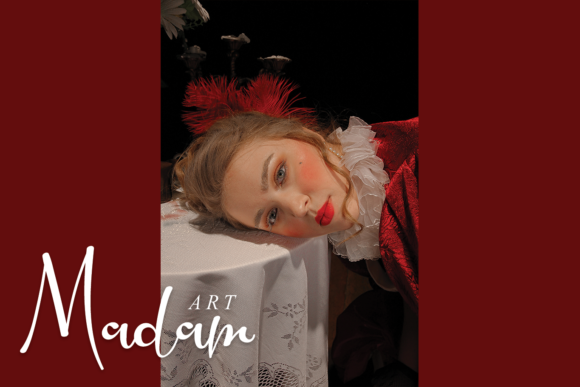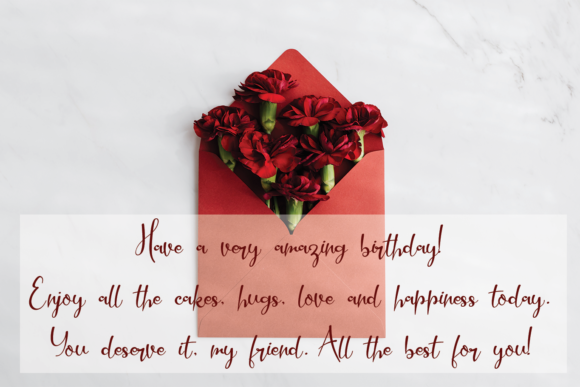
Introducing Happy Birthday Font: The Sweetest Script Font for Your Creative Projects
Are you looking for a font that can add a touch of joy and sweetness to your designs? Look no further than the Happy Birthday font! This beautiful script font is perfect for creating stunning wedding invitations, gorgeous stationery art, eye-catching social media posts, and much more. In this article, we’ll take a closer look at the Happy Birthday font and explore its features, uses, and benefits.
What is Happy Birthday Font?
Happy Birthday is a sweet and flowing script font that is sure to capture your heart with its cute and joyful style. Its elegant and cursive letters are designed to add a touch of sophistication and whimsy to any design project. Whether you’re a designer, crafter, or DIY enthusiast, this font is perfect for creating beautiful and eye-catching designs.
Features of Happy Birthday Font
The Happy Birthday font comes with a range of features that make it perfect for various design projects. Some of its key features include:
- Sweet and flowing script style: The Happy Birthday font features a beautiful script style that is perfect for creating elegant and sophisticated designs.
- Cute and joyful vibe: This font is designed to add a touch of joy and happiness to your designs, making it perfect for birthday cards, wedding invitations, and other celebratory designs.
- Elegant and cursive letters: The font features elegant and cursive letters that are sure to add a touch of sophistication to any design project.
- Multipurpose: The Happy Birthday font can be used for a wide range of design projects, including wedding invitations, stationery art, social media posts, and more.
Uses of Happy Birthday Font
The Happy Birthday font is a versatile font that can be used for various design projects. Here are some of the most popular uses of this font:
- Wedding Invitations: The Happy Birthday font is perfect for creating beautiful and elegant wedding invitations that will set the tone for your special day.
- Stationery Art: This font can be used to create gorgeous stationery art, including greeting cards, gift tags, and journal pages.
- Social Media Posts: The Happy Birthday font can be used to create eye-catching social media posts that will grab the attention of your followers.
- Crafting Projects: This font is perfect for crafters who want to add a personal touch to their DIY projects, such as scrapbooking, paper crafting, and more.
Benefits of Using Happy Birthday Font
There are many benefits to using the Happy Birthday font for your design projects. Here are some of the most significant advantages:
- Unique and Creative: The Happy Birthday font is a unique and creative font that will help your designs stand out from the crowd.
- Easy to Read: This font is easy to read and understand, making it perfect for designs that require a clear and concise message.
- Customizable: The Happy Birthday font can be customized to fit your design needs, including changing the color, size, and style.
- Time-Saving: Using a pre-designed font like Happy Birthday can save you time and effort, allowing you to focus on other aspects of your design project.
Tips for Using Happy Birthday Font
Here are some tips for using the Happy Birthday font effectively in your design projects:
- Pair with Other Fonts: The Happy Birthday font can be paired with other fonts to create a unique and interesting design.
- Experiment with Colors: This font can be used with a range of colors to create a design that matches your brand or personal style.
- Use for Headings and Titles: The Happy Birthday font is perfect for headings and titles, adding a touch of elegance and sophistication to your designs.
The Happy Birthday font is a beautiful and versatile script font that is perfect for designers, crafters, and DIY enthusiasts. Its sweet and flowing script style, cute and joyful vibe, and elegant and cursive letters make it a great choice for a wide range of design projects. Whether you’re creating wedding invitations, stationery art, social media posts, or crafting projects, this font is sure to add a touch of joy and happiness to your designs.